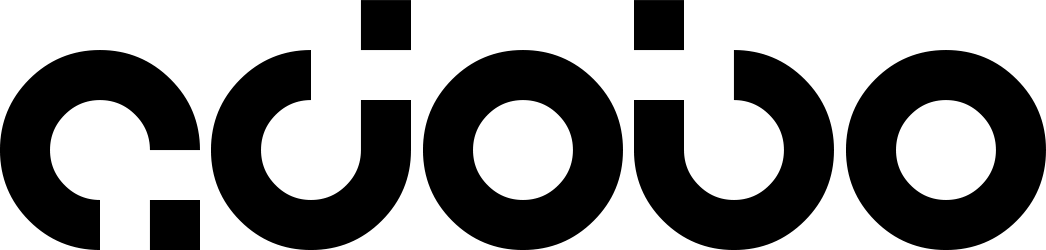
Adobo Font
Designed byEyeCone
Today we are introducing a modern techno font called Adobo and its characters are kinda of unreadable. It can be used for any branding names, gaming, product packaging, informal texts or headlines, and any kind of informal event to give a mysterious and digital tone to your literature. This font does not have all the characters.